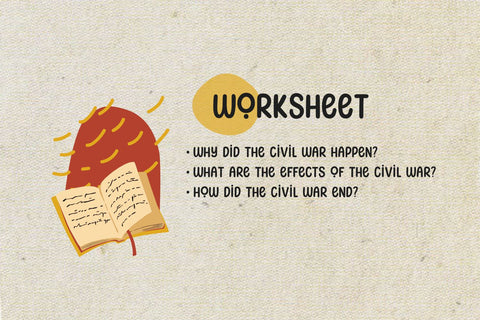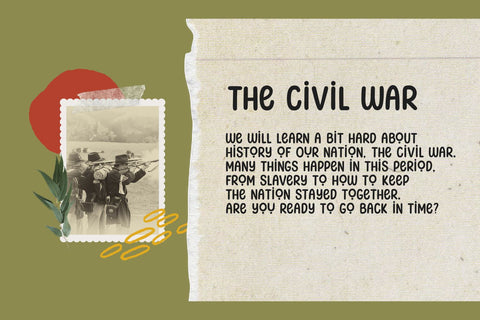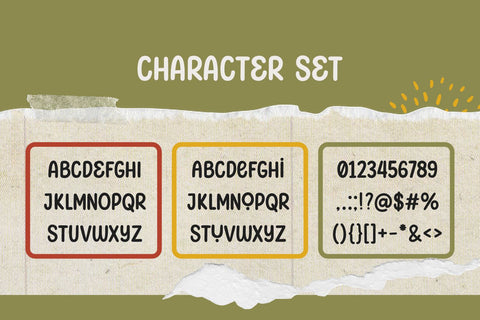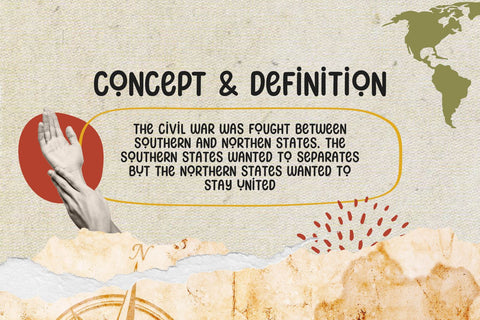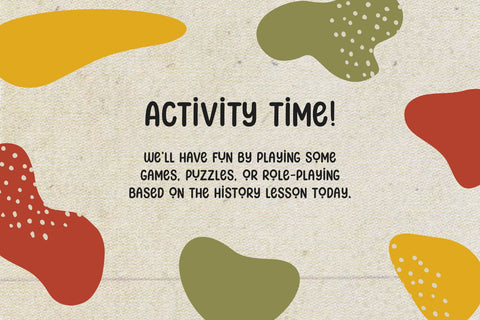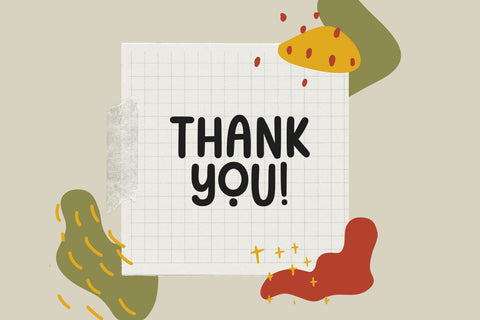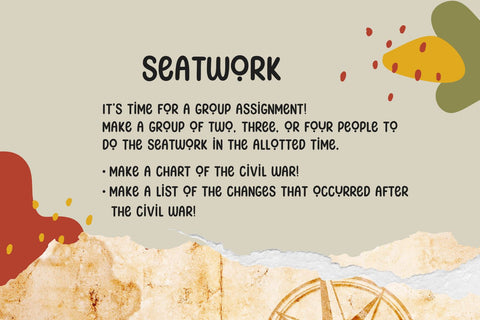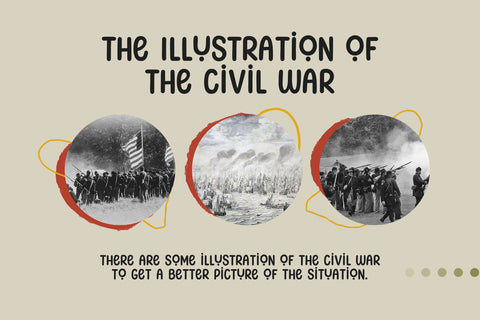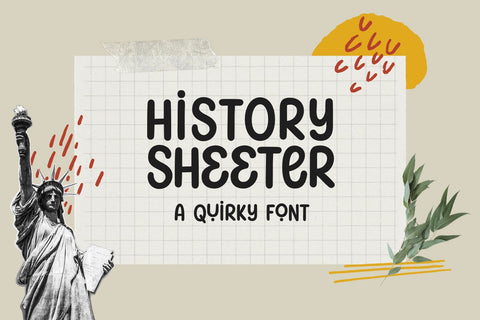
History Sheeter - a Quirky Font
History Sheeter is a cute, quirky, and friendly display font. Its informal style and casual vibe will make this font a go-to choice for any creative project that requires a relaxed touch.